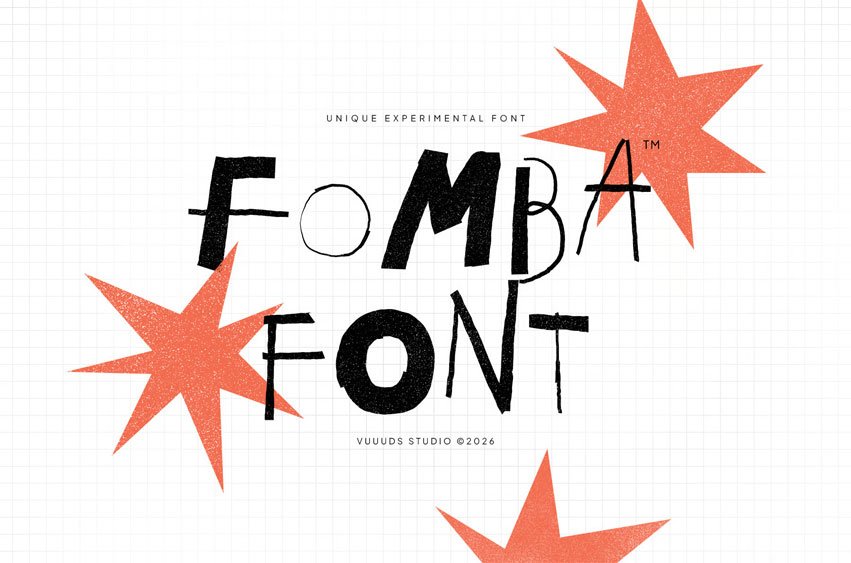
Fomba Font is a unique brush pen font with cool, randomly varied stroke widths. Every single letters have been uniquely crafted. This font including beautiful alternate glyph.